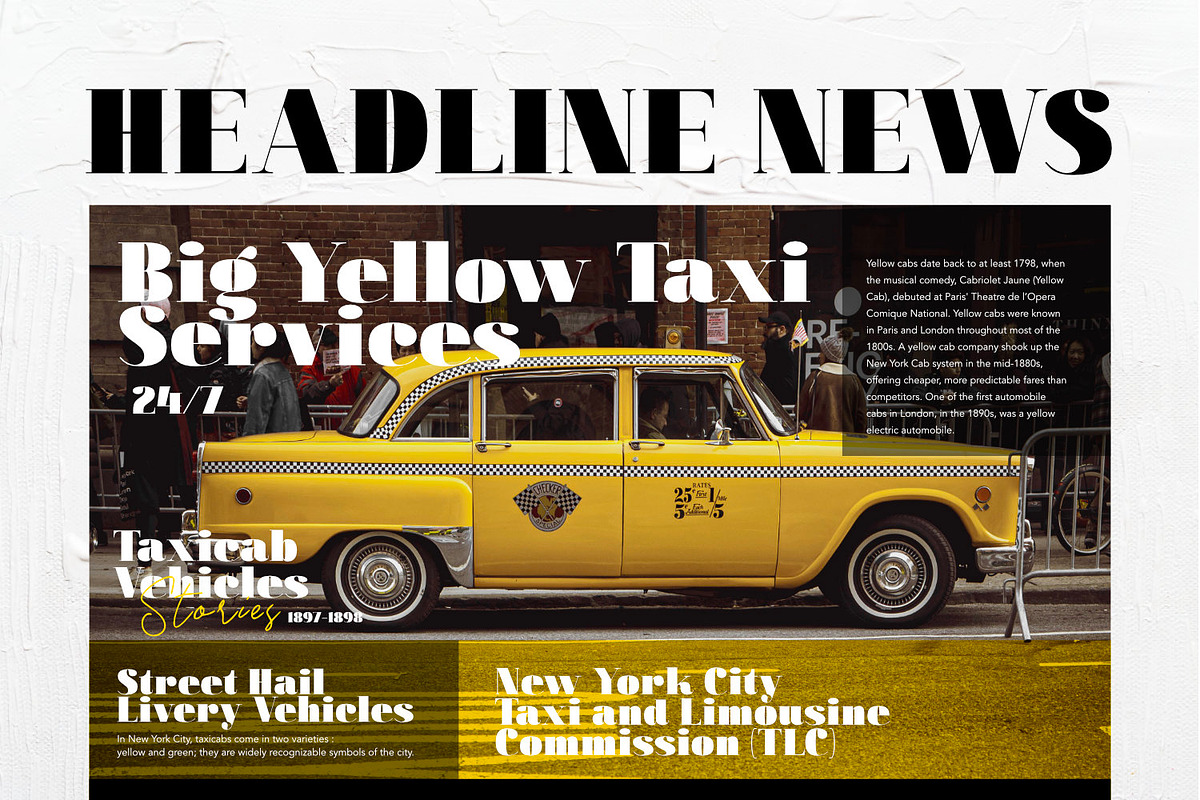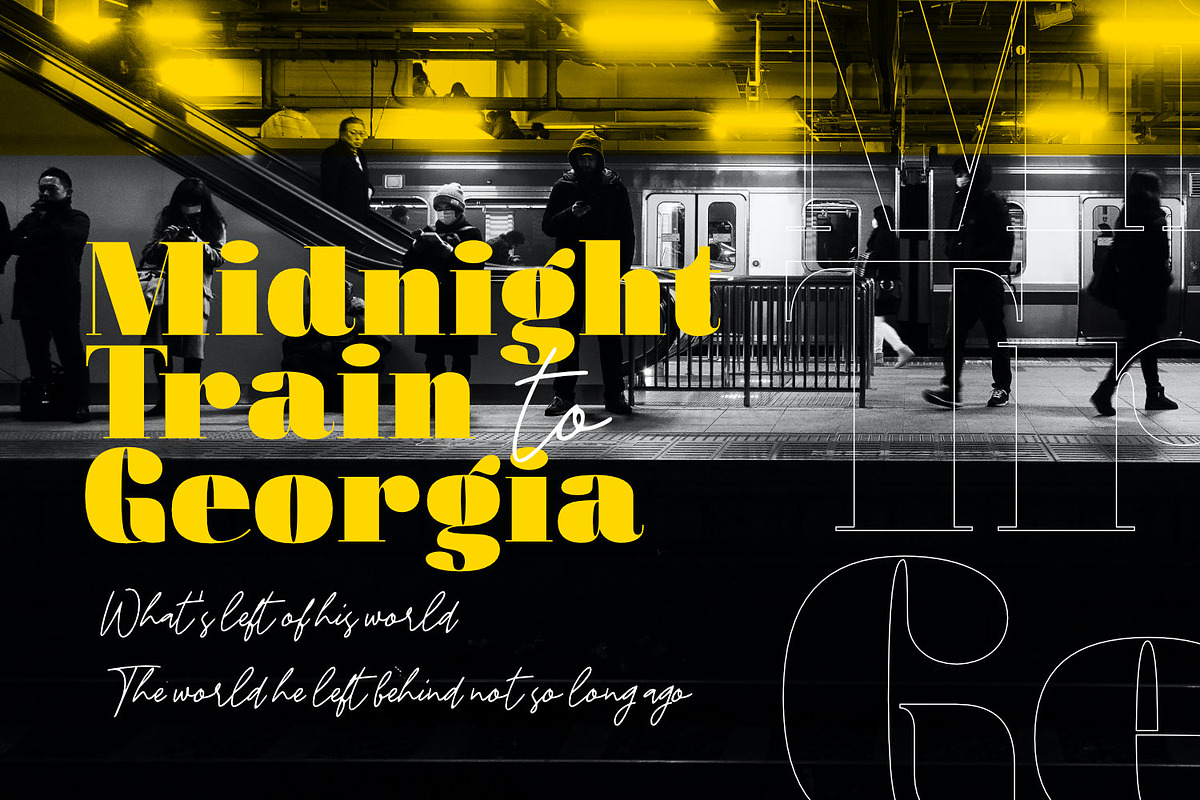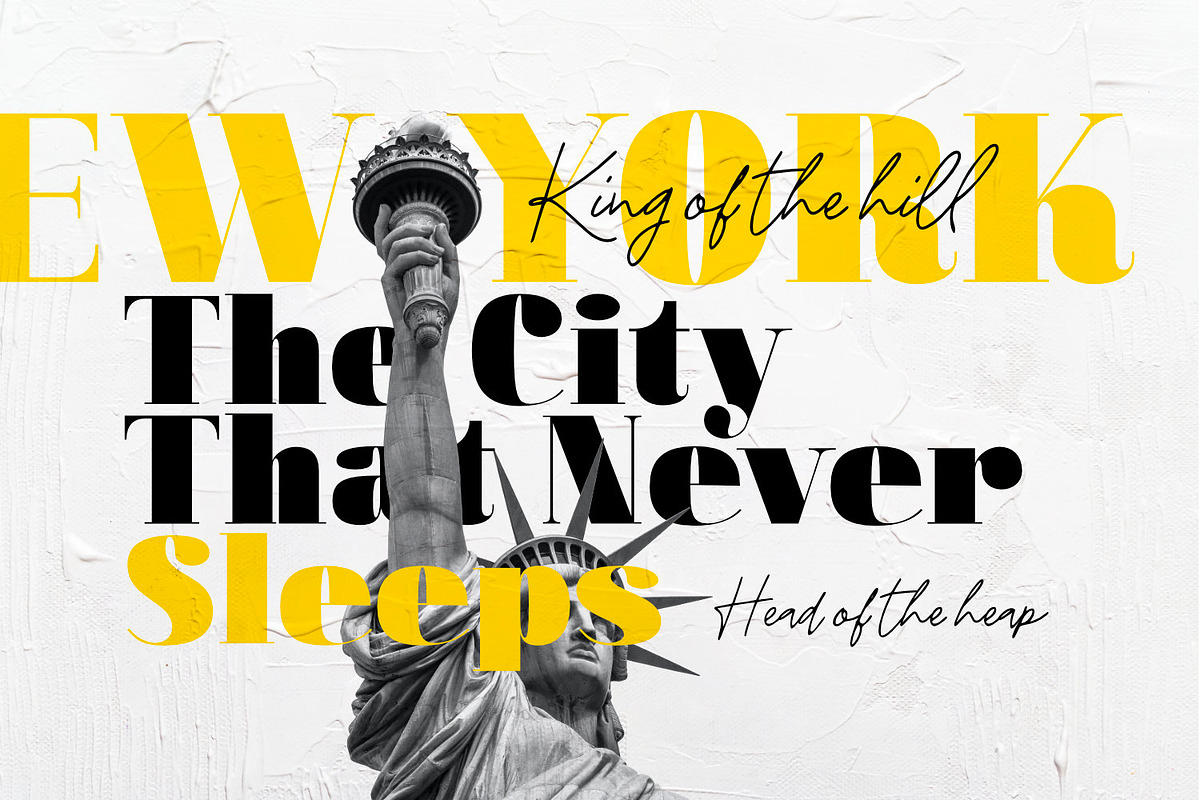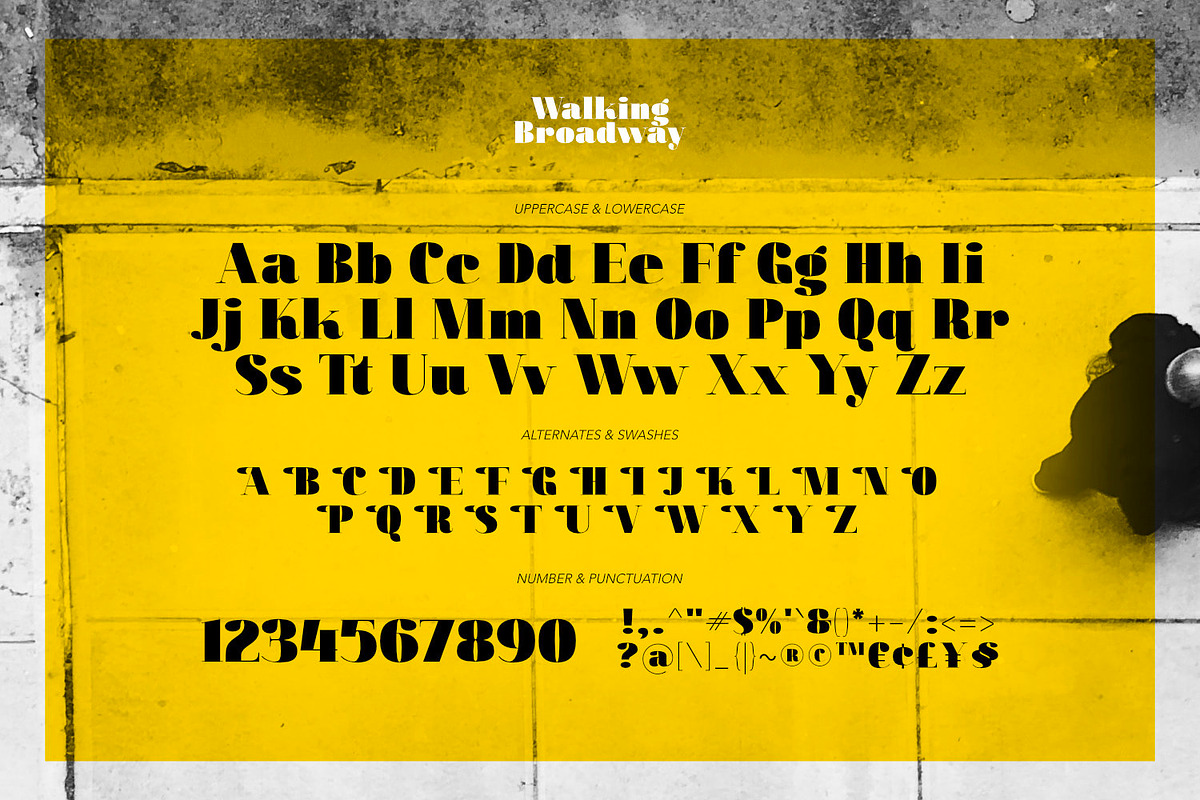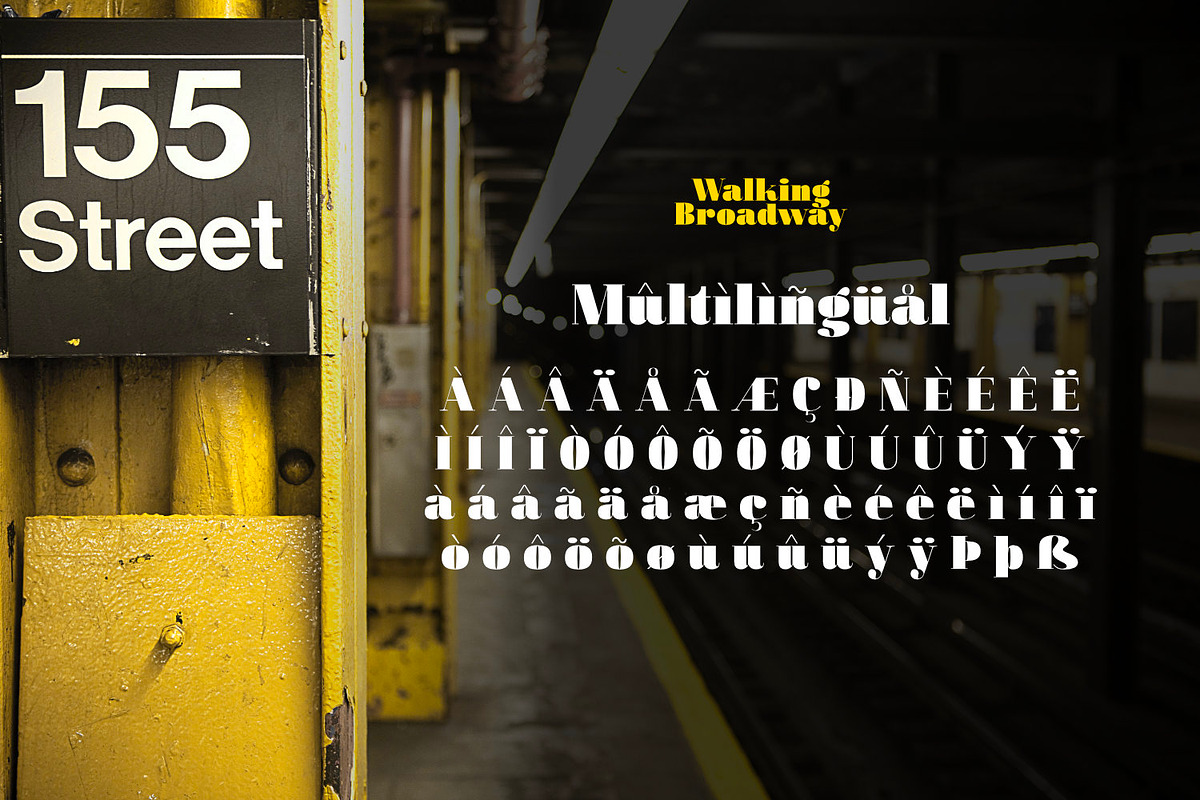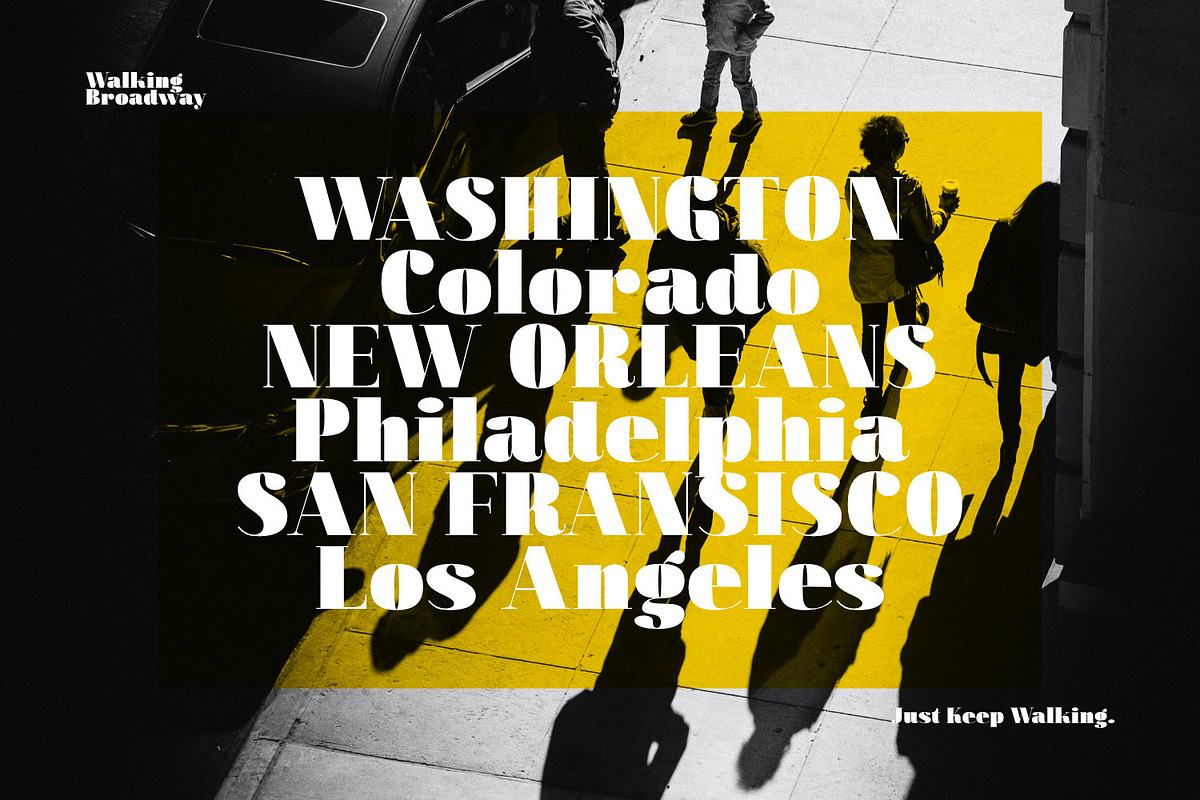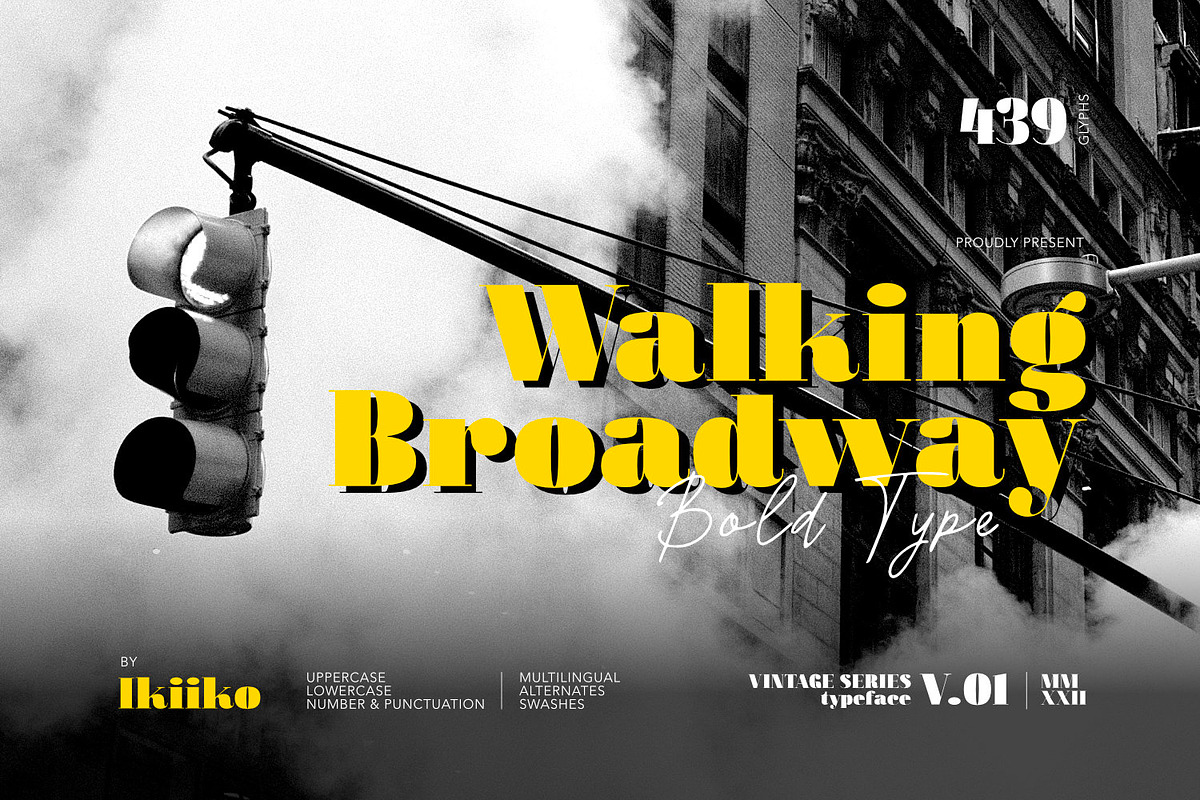
Walking Broadway - Bold Type
Introducing Walking Broadway - Bold Type, created by ikiiko.
Walking Broadway is a serif bold type, that inspired by typography from a vintage movie & newspaper at that era. This typeface is designed to give a formal yet old style look. Walking Broadway has a distinctive bold to light contrast shape. A style commonly used in movie, magazines, and signage in that era. This typeface is perfect for an formal layout, old movie poster, newspaper, magazine cover, and also good for vintage product, food & beverages, quotes, or simply as a stylish text overlay to any background image.
- Number & Punctuation
- Alternates & Swashes